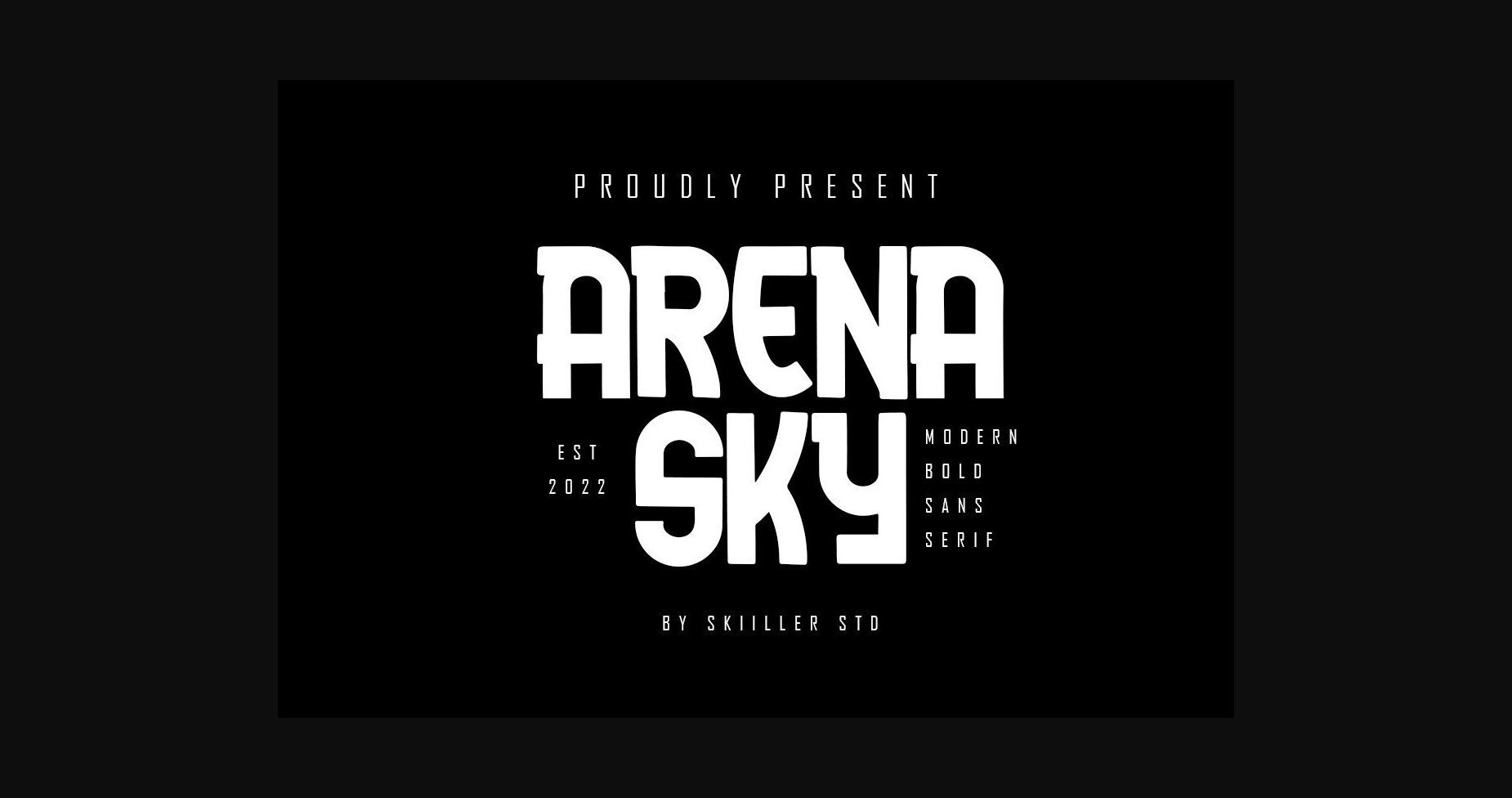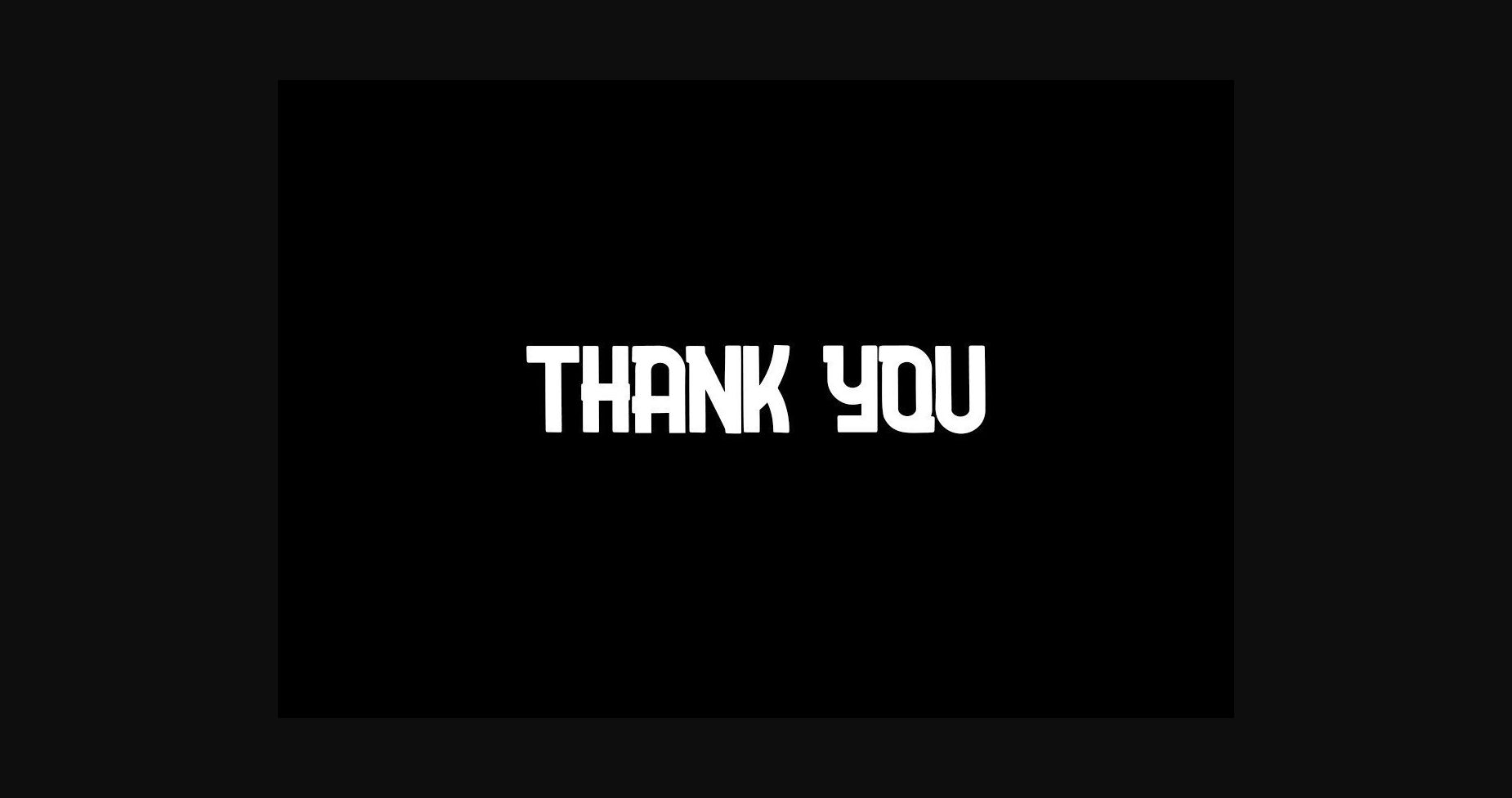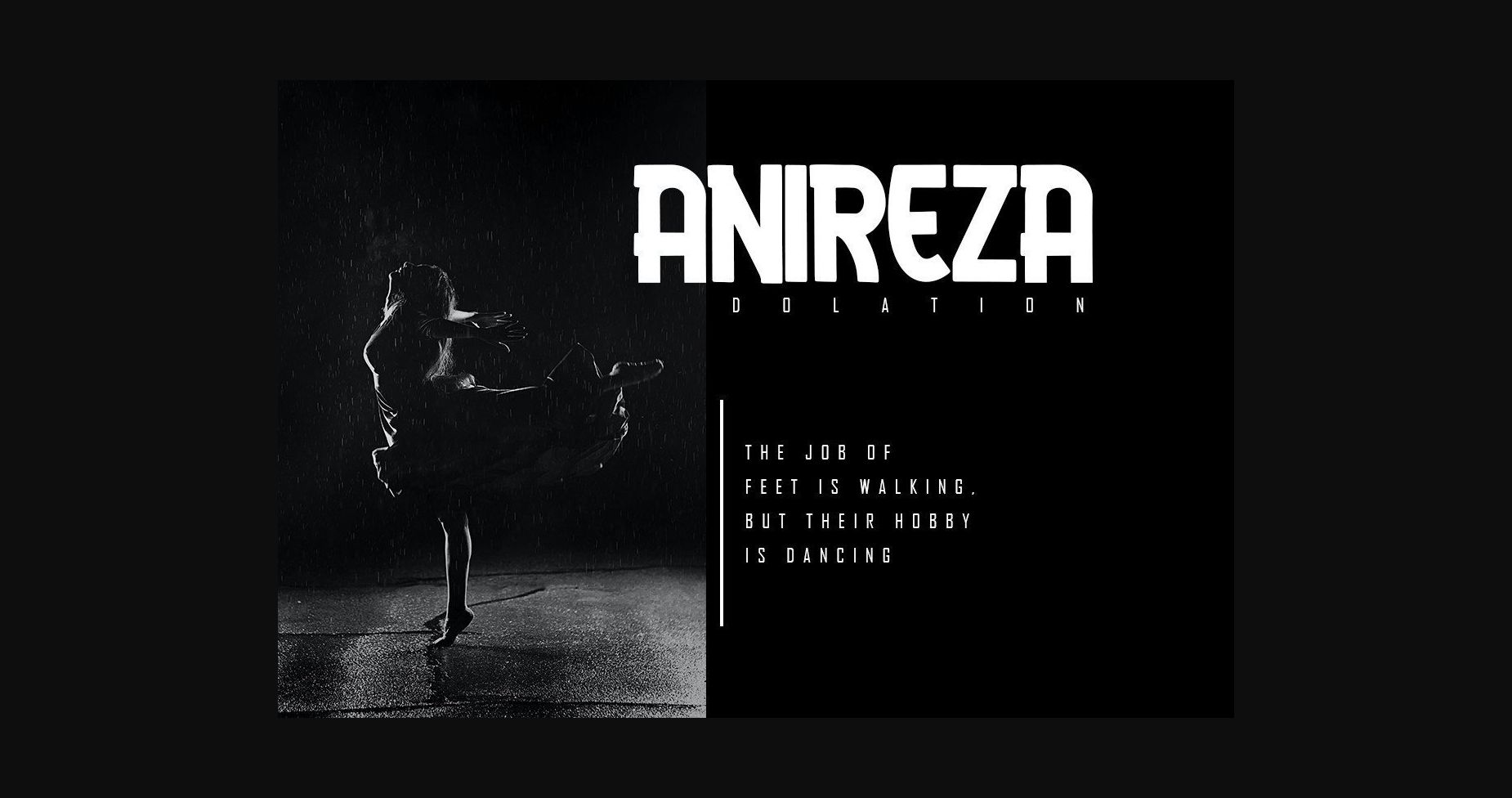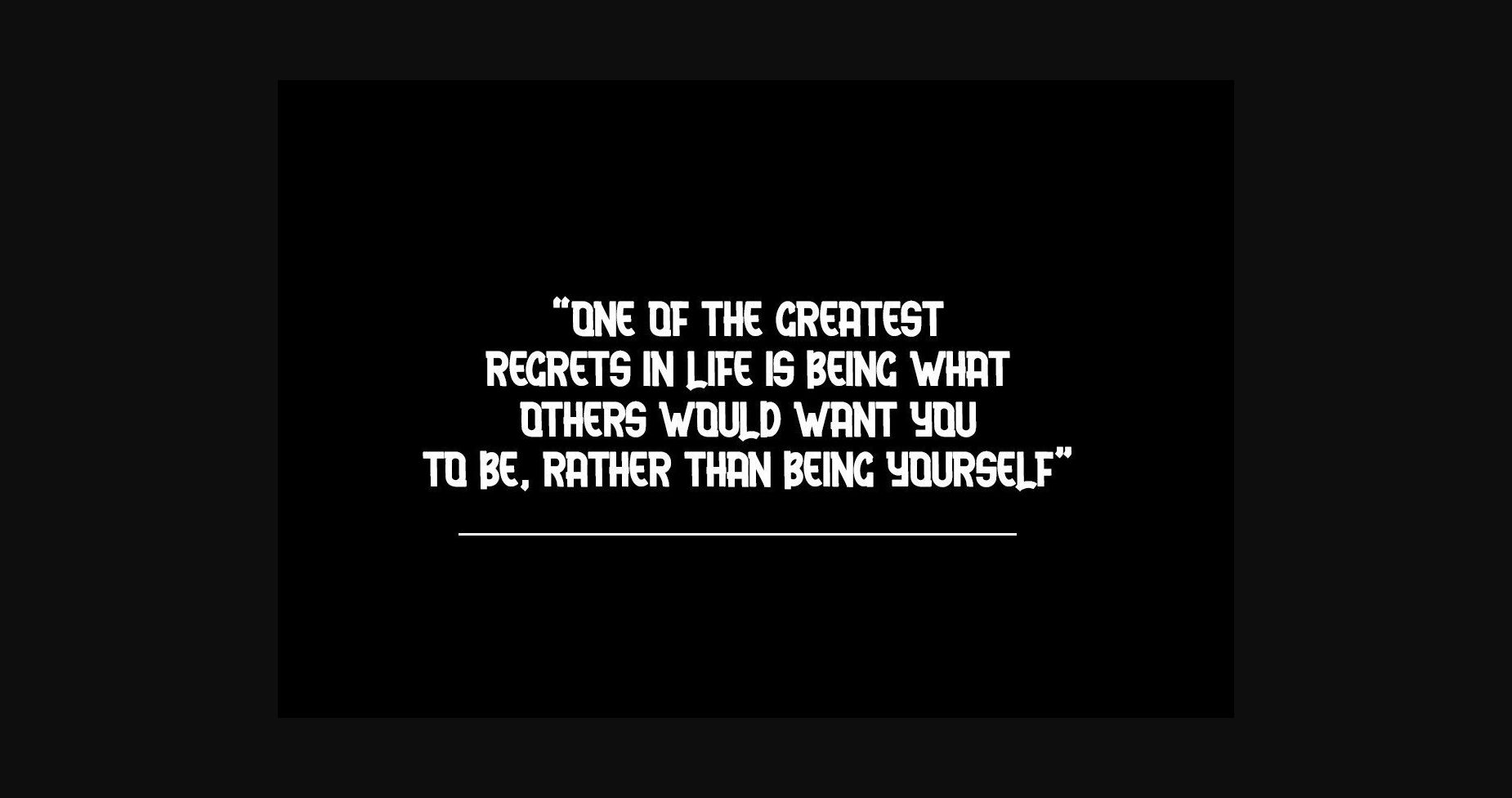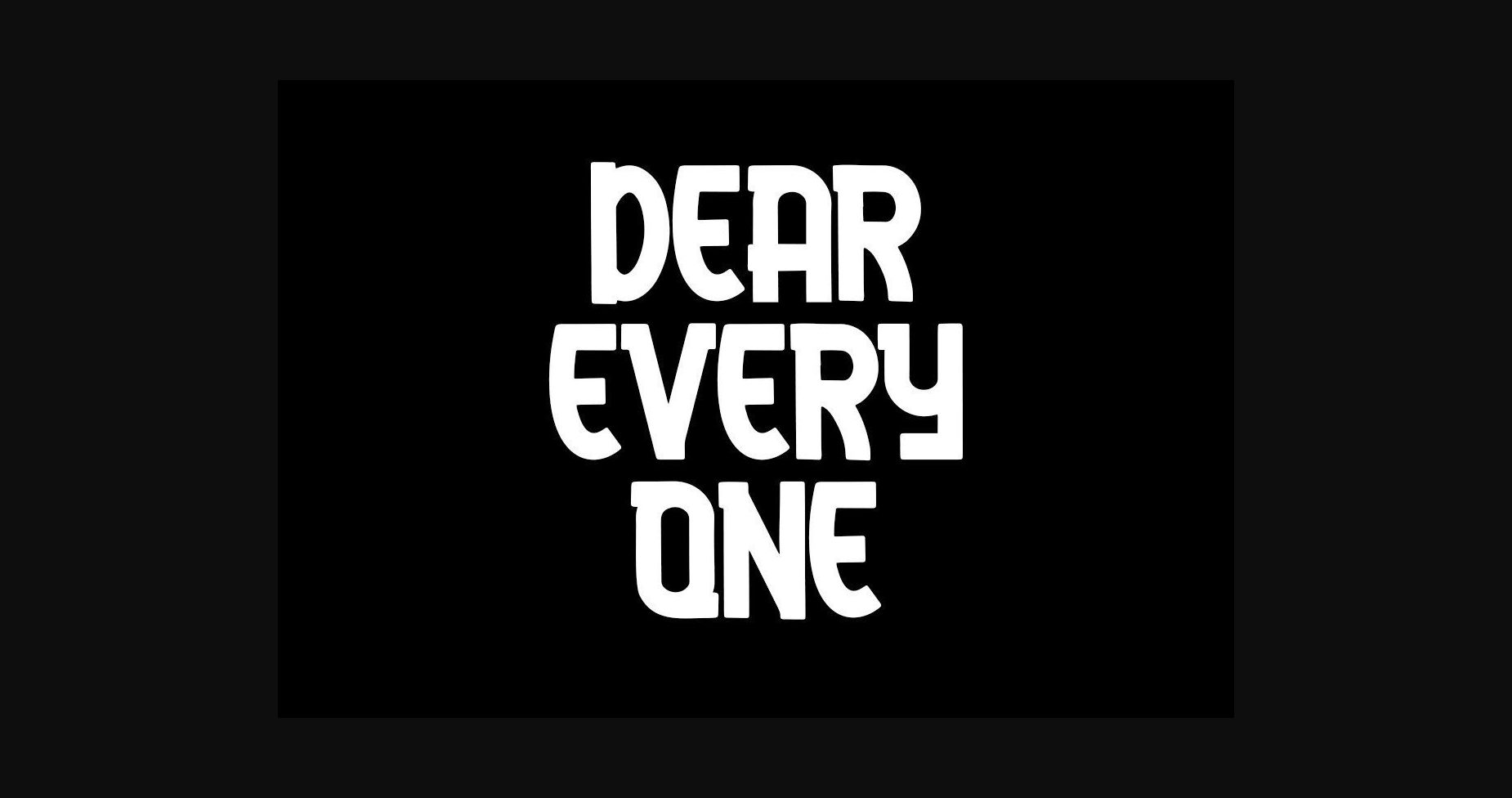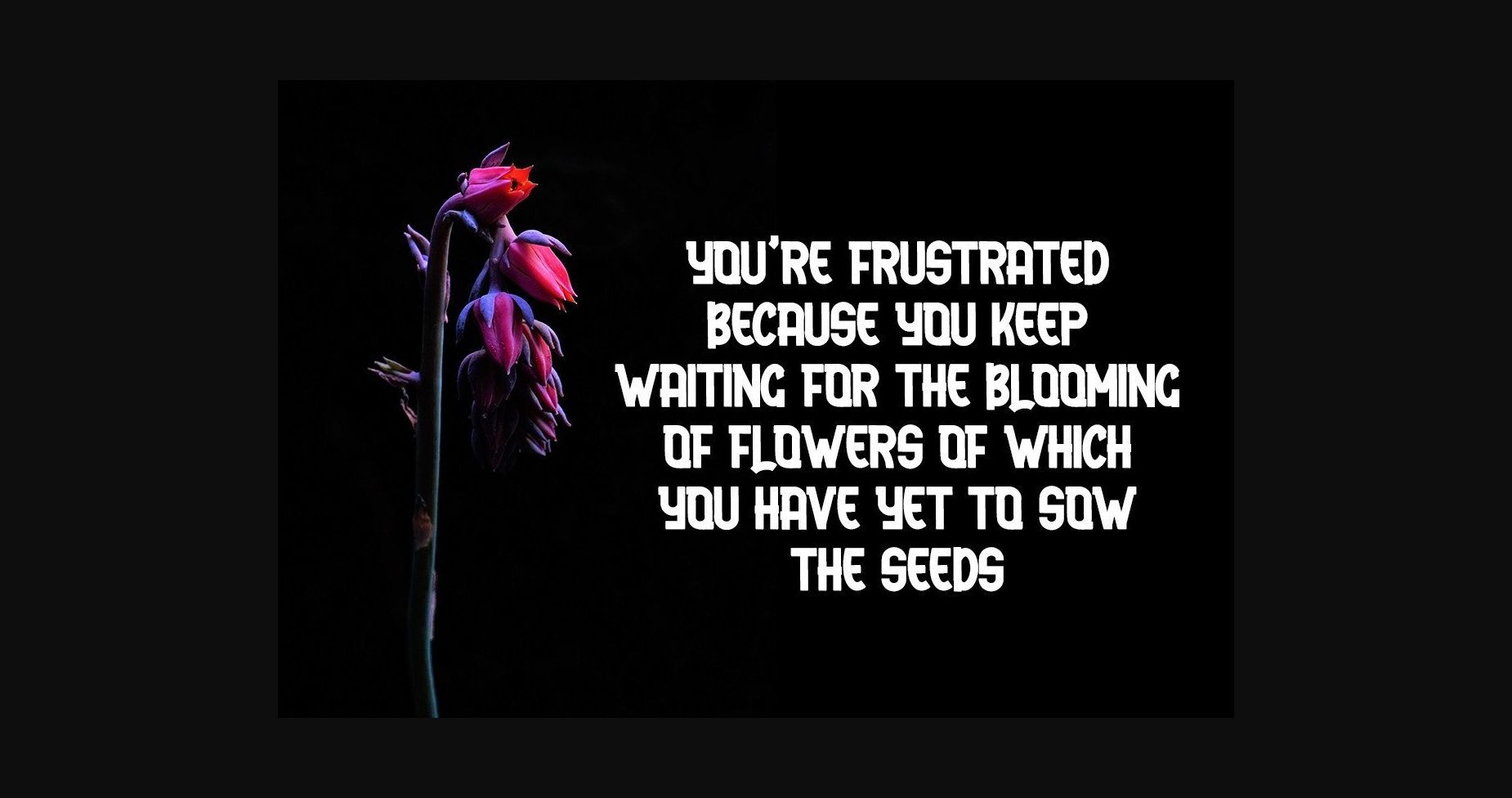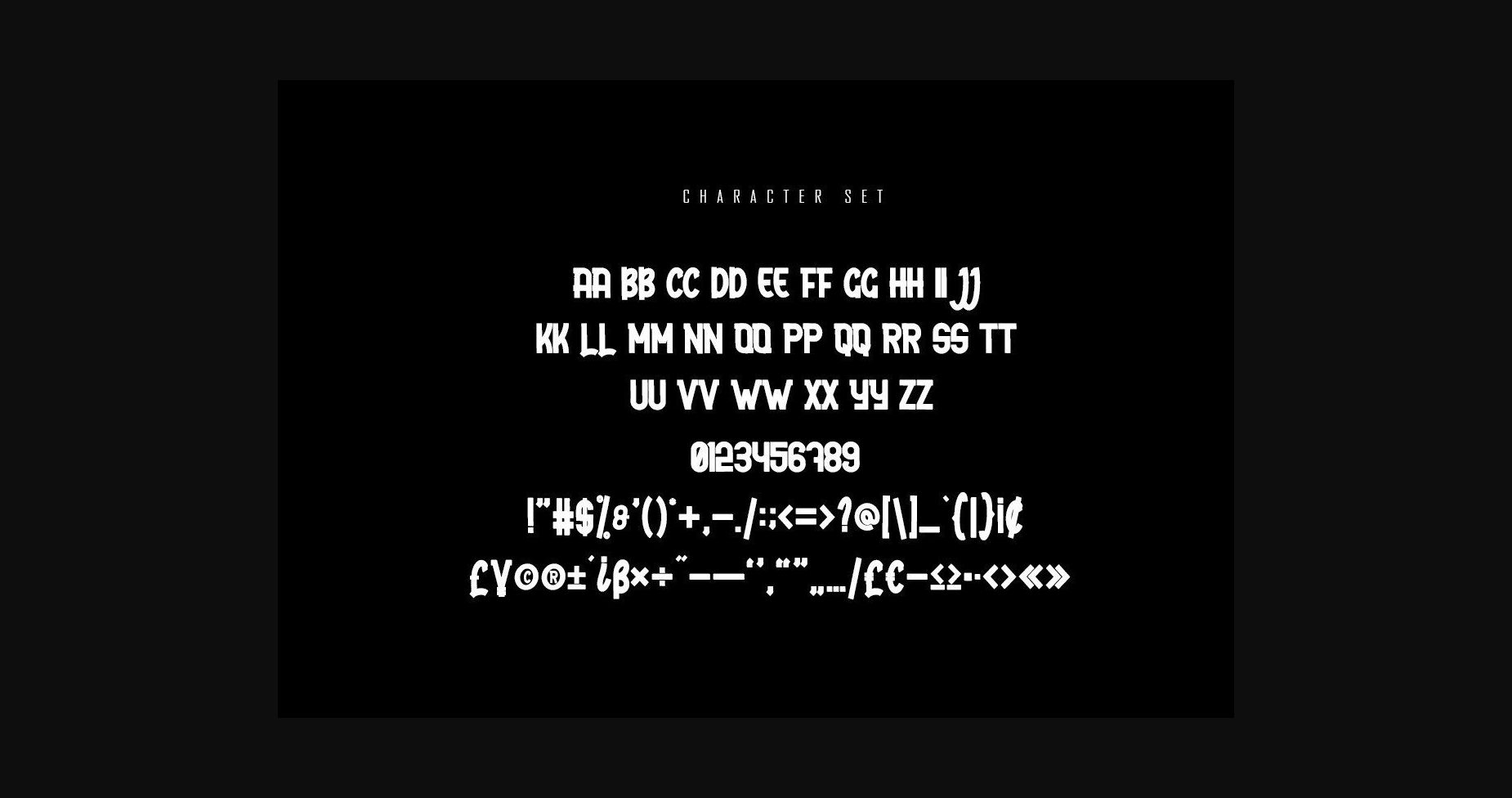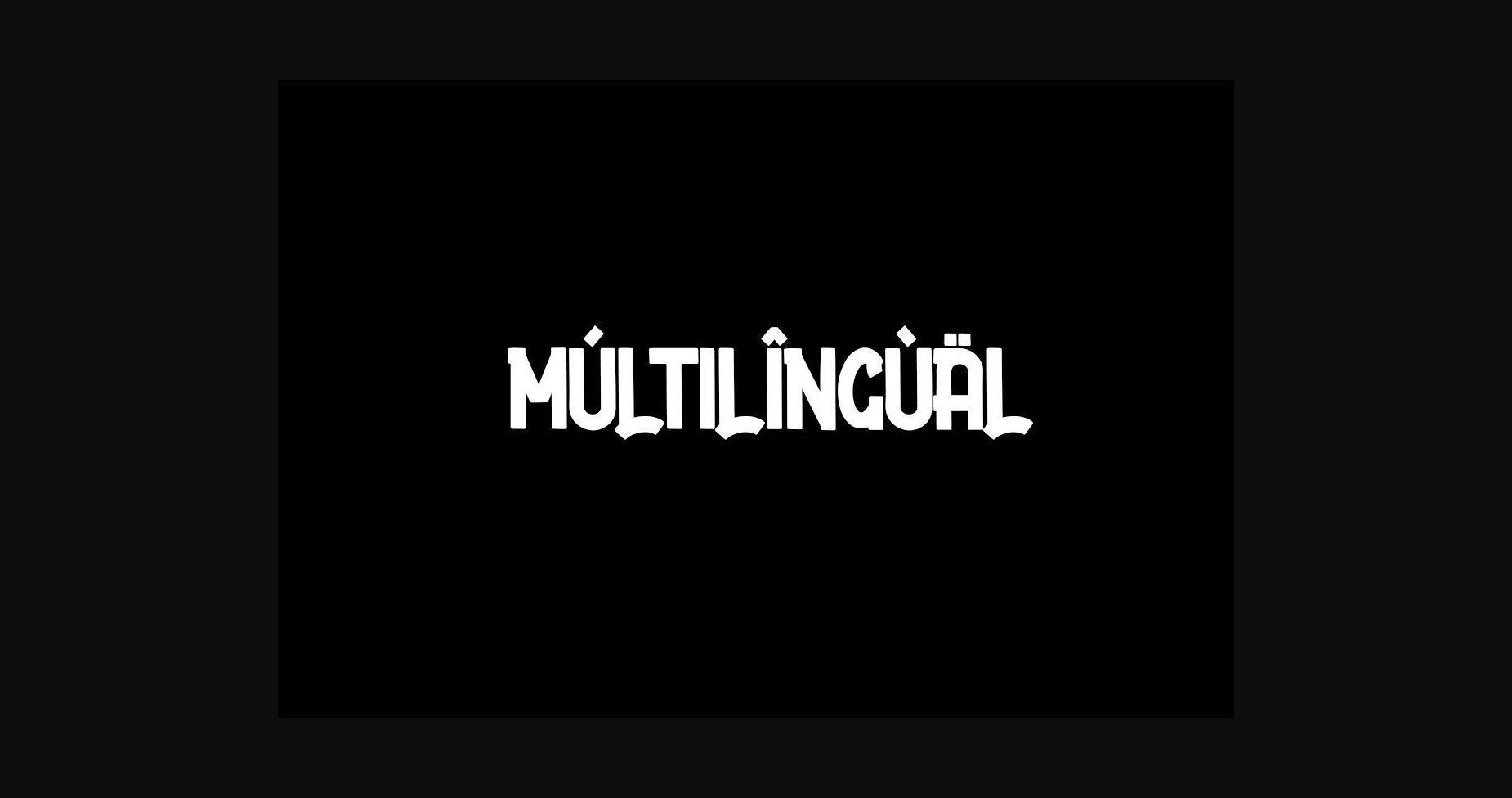
Arena Sky
Arena Sky: A Cool and Bold Slab Serif Font
Arena Sky is a cool and bold slab serif font ideal for writing web designs, business cards, or pretty much anything that requires a unique touch. Its distinctive style makes it versatile for various creative projects.
Key Features of Arena Sky
• Bold Design: Offers a strong and confident look suitable for impactful designs.
• Slab Serif Structure: Features thick, rectangular serifs typical of slab serif fonts.
• Versatile Application: Ideal for web designs, business cards, and other creative projects.
• Unique Touch: Brings a distinctive style to any design it’s used in.
Ideal Uses for Arena Sky
Arena Sky’s unique characteristics make it particularly well-suited for:
When incorporating Arena Sky into your designs, consider these tips:
• Use for headlines or short blocks of text to showcase its bold style.
• Utilize its unique touch to make your designs stand out.
Arena Sky is an excellent choice for designers looking to add a cool and bold slab serif font to their typographic toolkit. Its ability to bring a unique touch to various design projects makes it stand out in the world of typography. Whether you’re working on web designs, creating business cards, or developing content that requires a distinctive style, Arena Sky offers the perfect blend of boldness and creativity.
Furthermore, Arena Sky’s unique design allows it to shine in various contexts. From modern digital layouts to more traditional print materials that need a touch of uniqueness, this font can elevate your projects. Its striking yet functional style works particularly well in designs that require a thoughtful and engaging mood.
In conclusion, Arena Sky is a font that truly captures the essence of creativity and impact in typography. Its ability to work well in both minimalist projects and more elaborate layouts showcases its flexibility. For those looking to add a touch of unique charm to their work, Arena Sky can enhance themed creations with its distinctive style. It’s the perfect choice for designers seeking to make a strong, stylish impact across a wide range of creative projects.